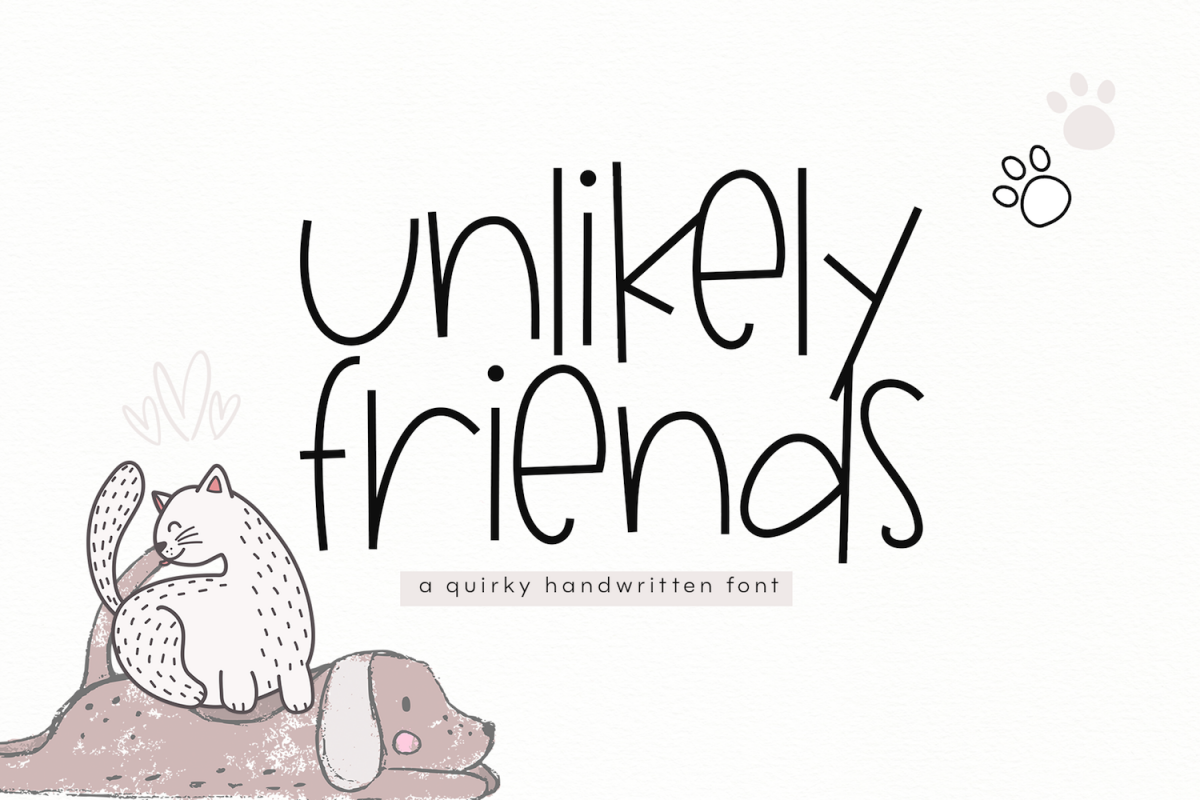
Unlikely Friends - A Quirky Handwritten Font
Unlikely Friends is a quirky handwritten font.
This font is perfect for quotes, headings, blogs, logos, invitations and more!
This font does include accent characters.